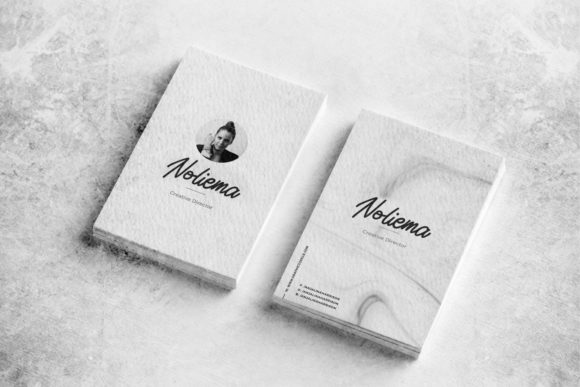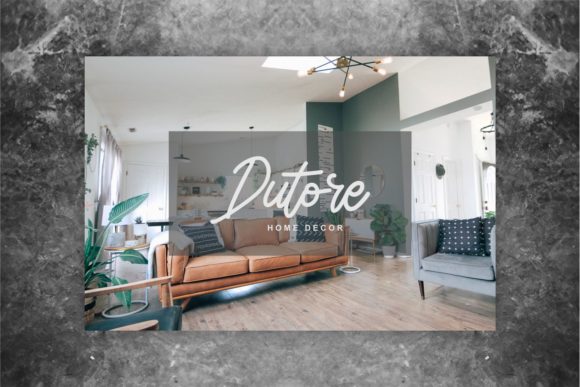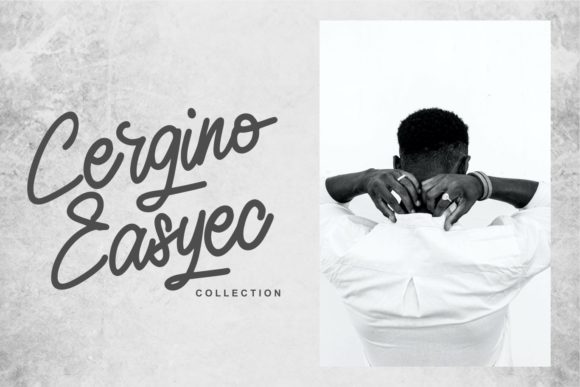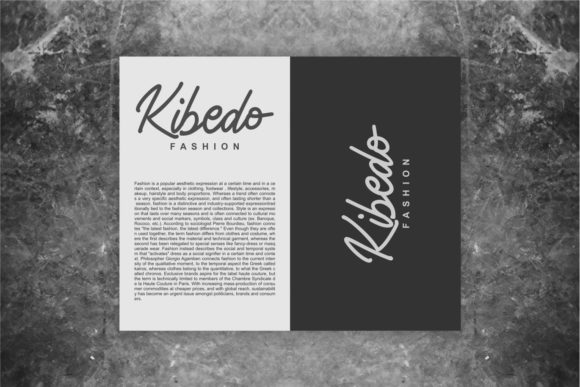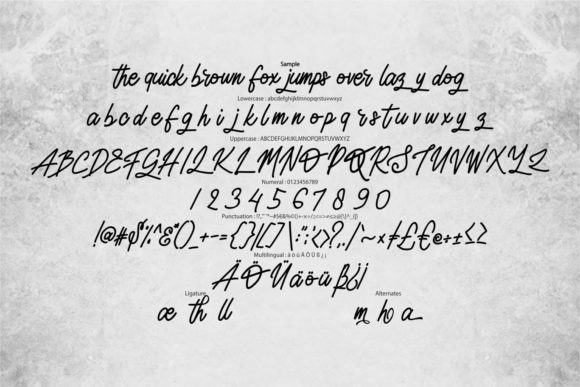
Mariose Font
About Mariose Font
Mariose is a magical handwritten font carefully created with a touch of elegance. It maintains its classy calligraphic influences while feeling contemporary and fresh. This versatility will appeal to a wide range of crafty ideas, from letterheads and titles, to stationery.